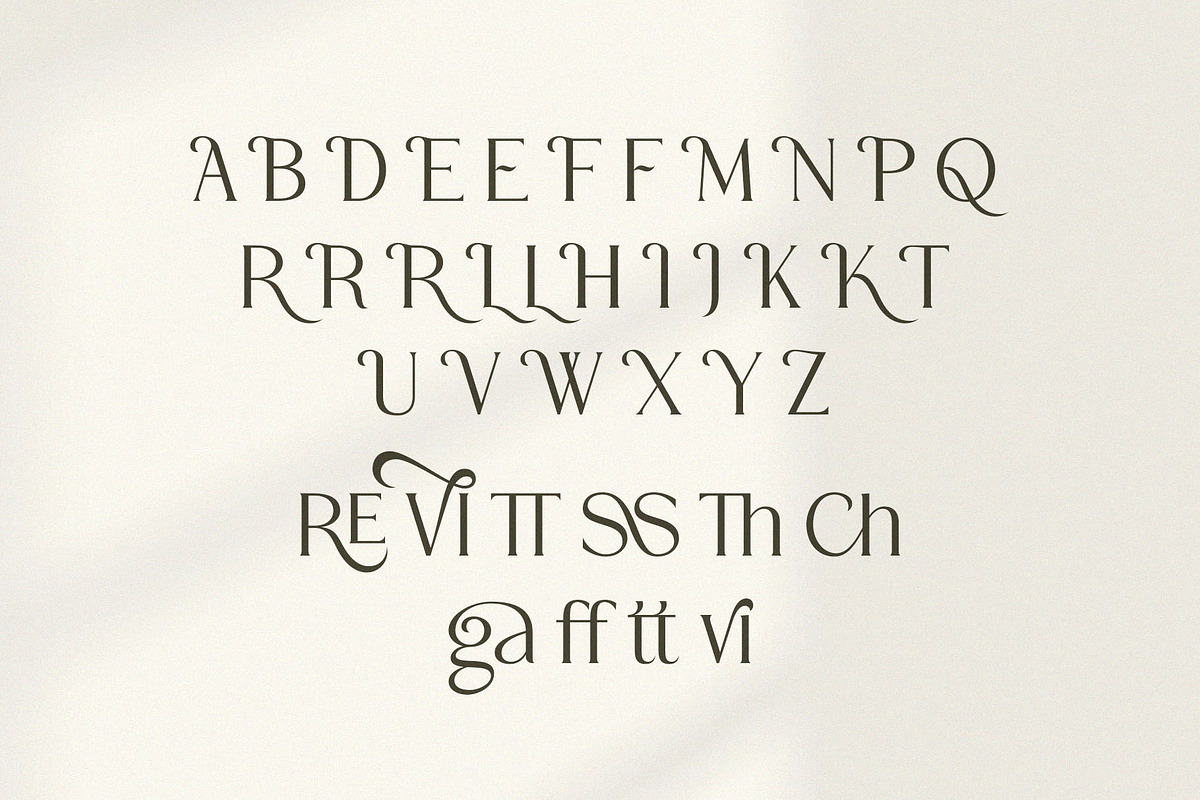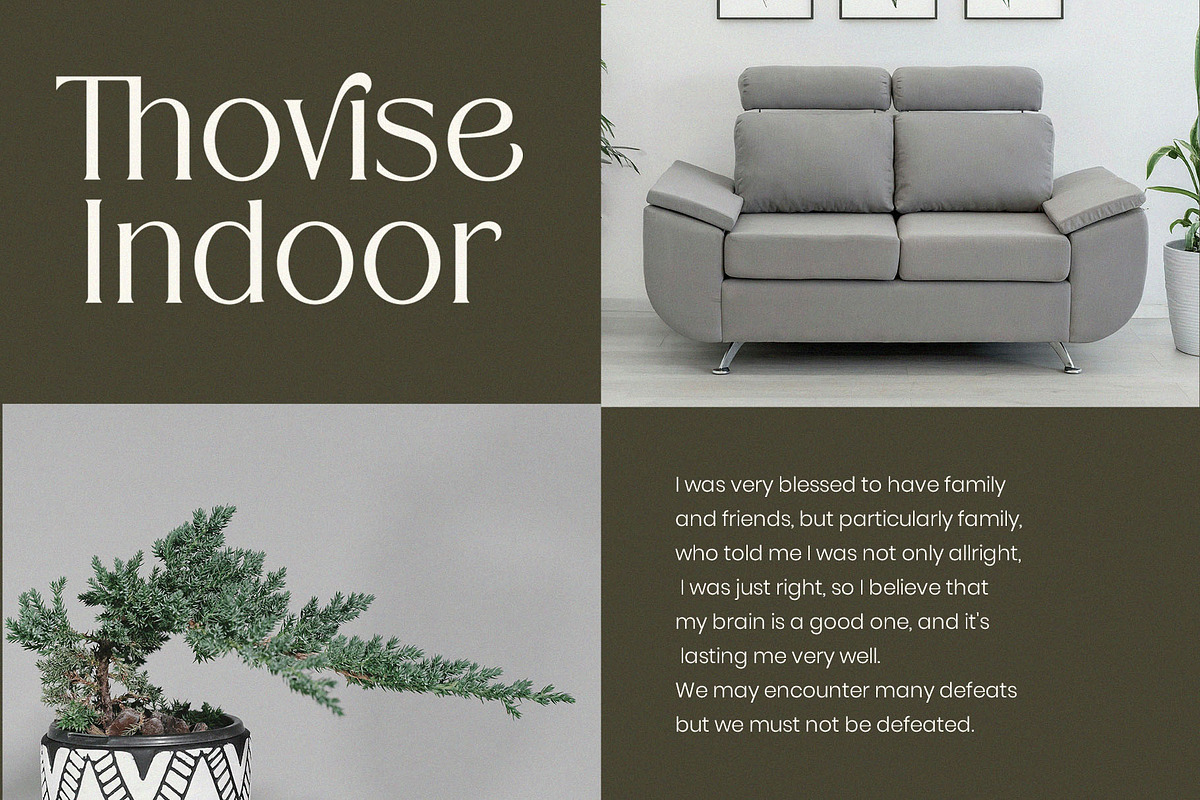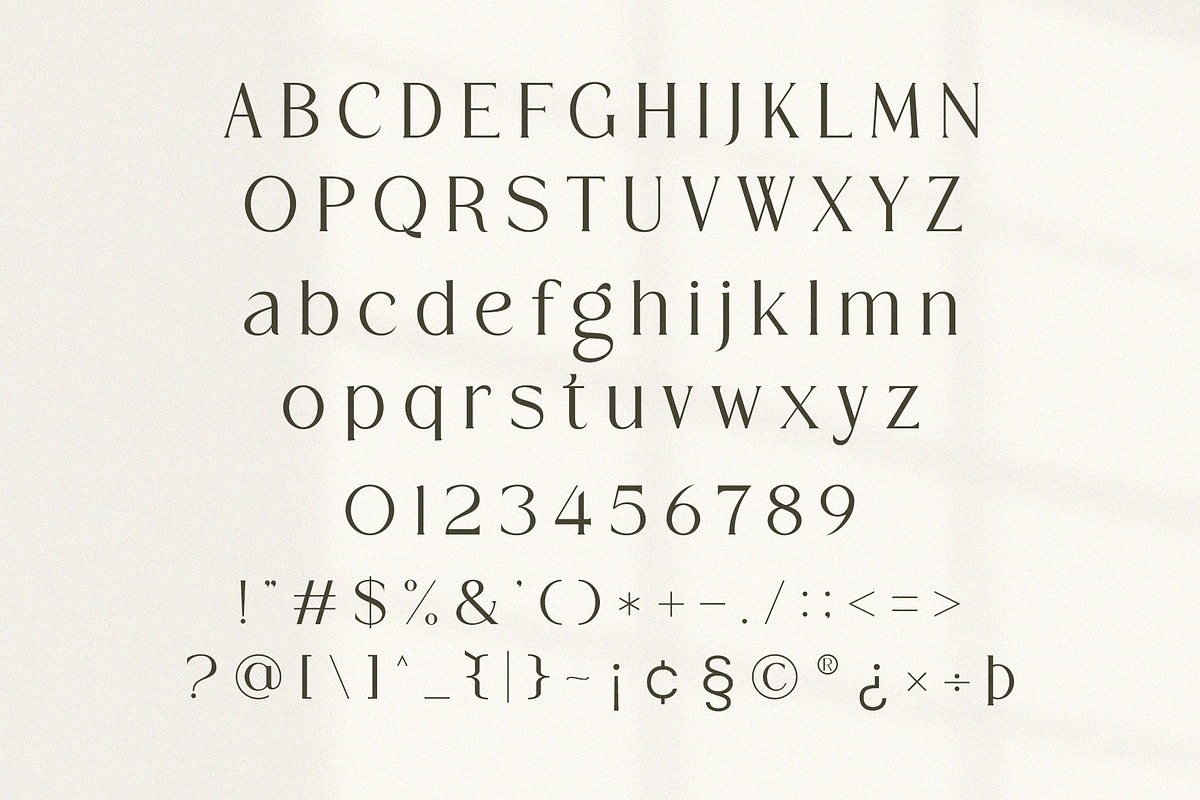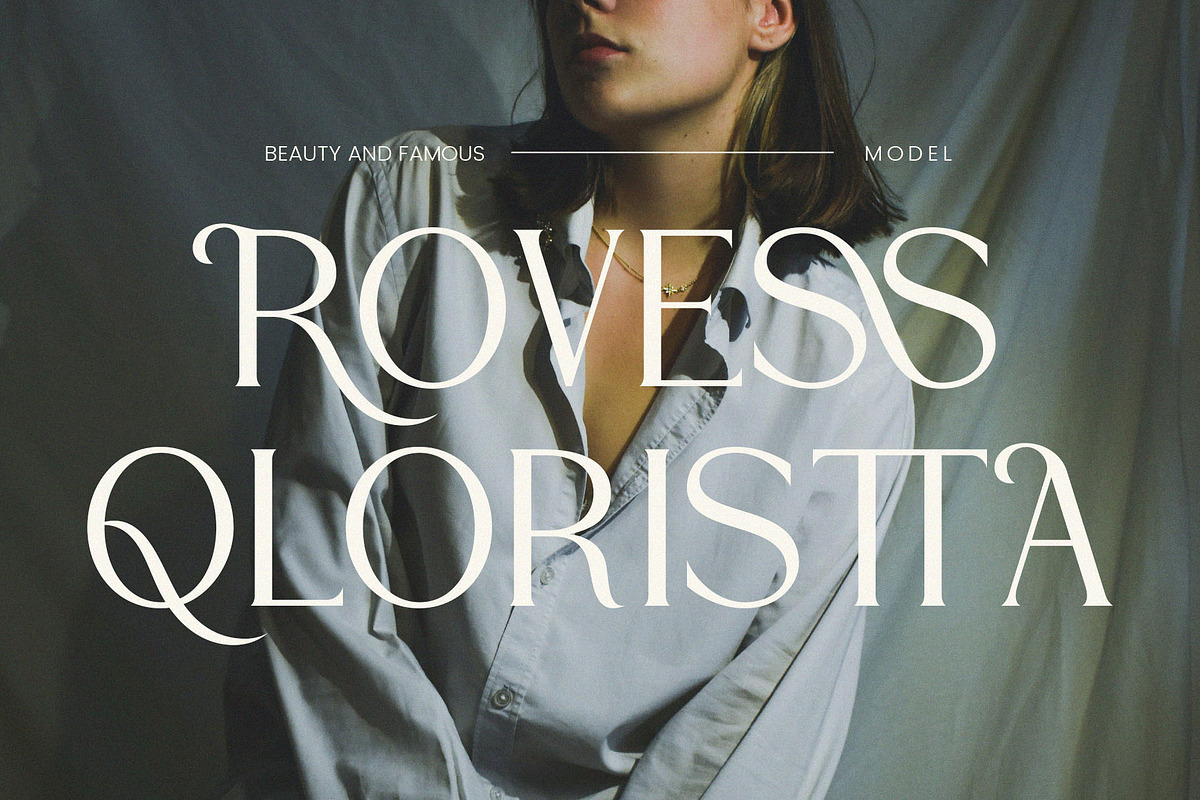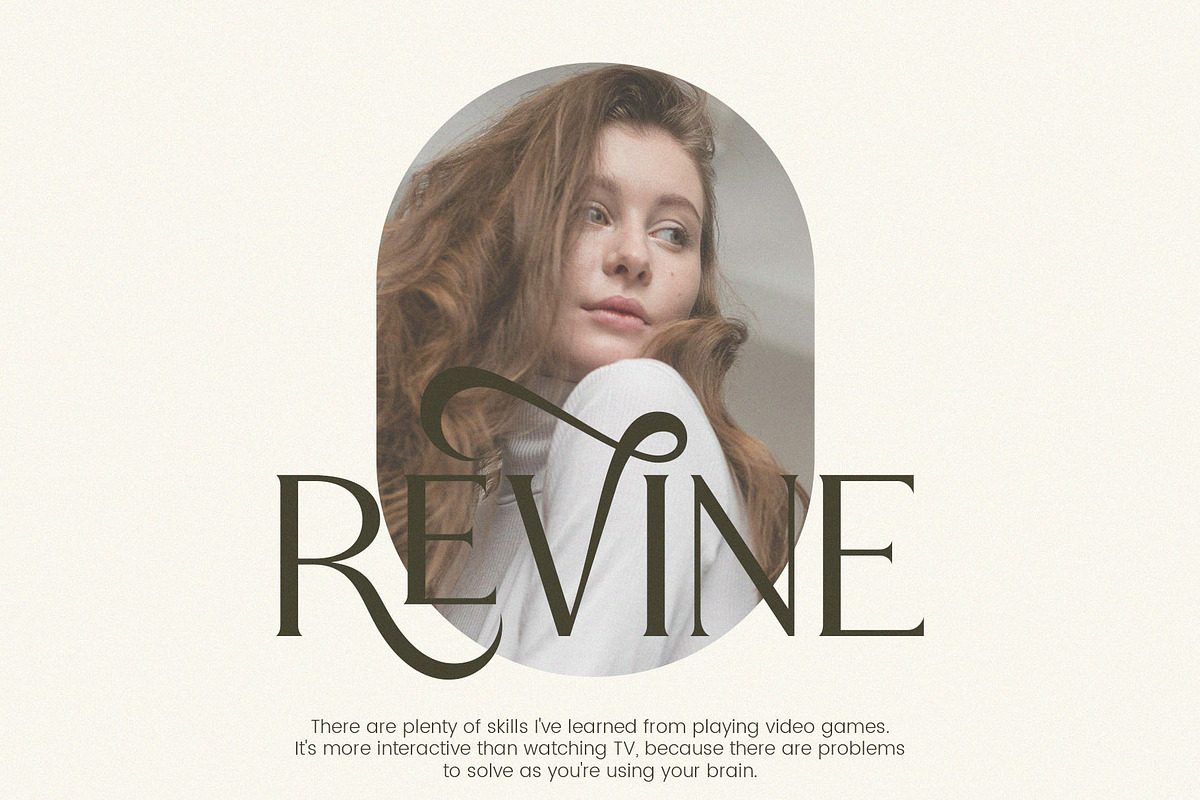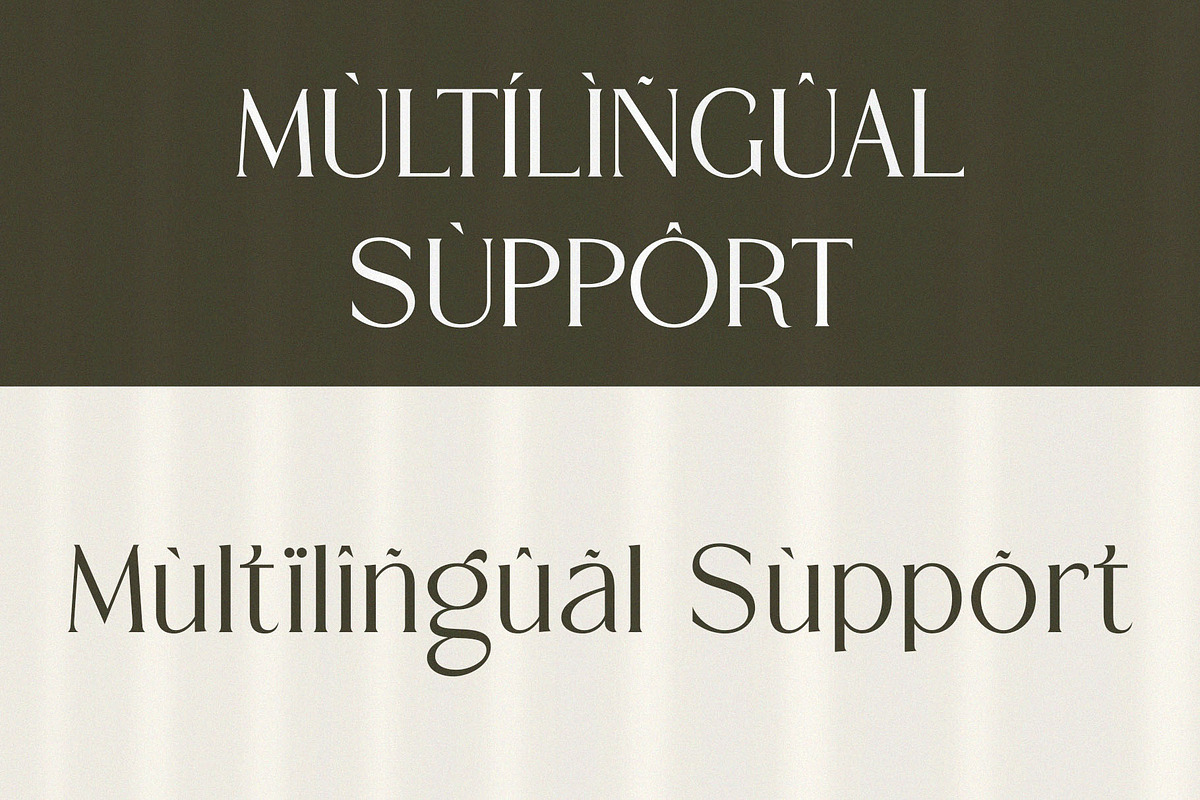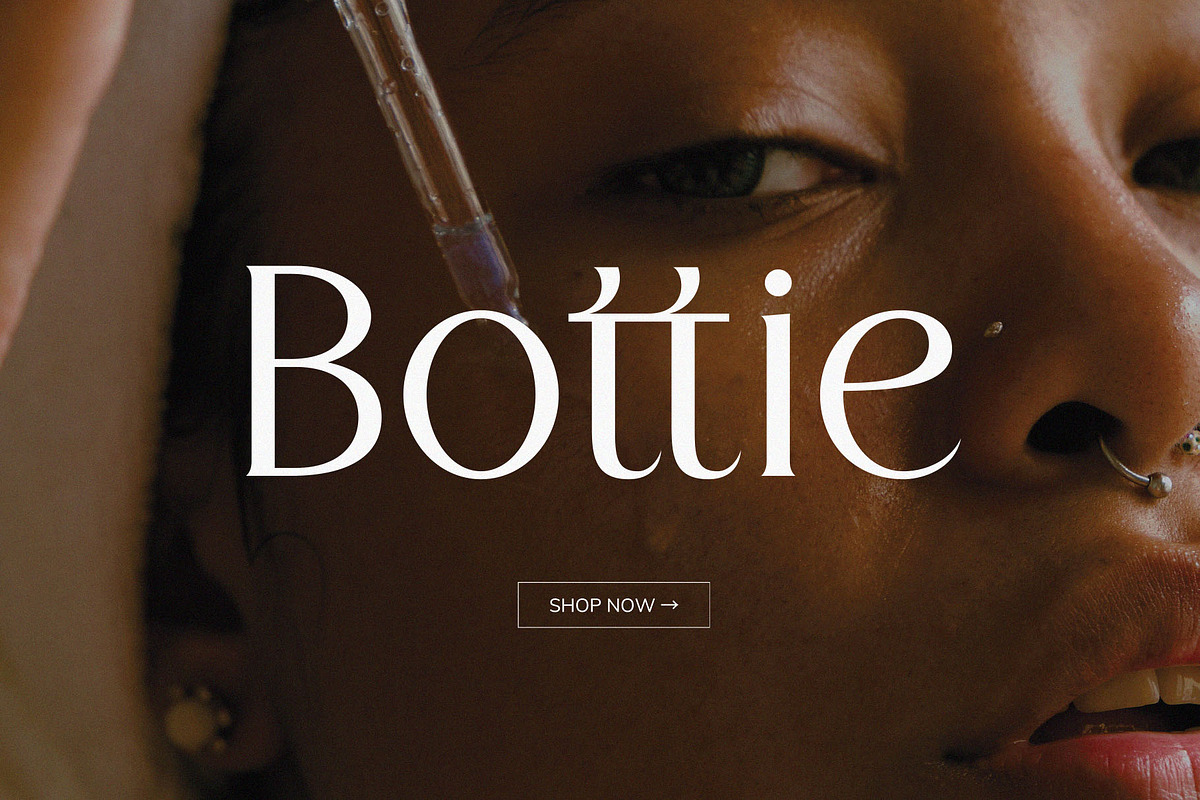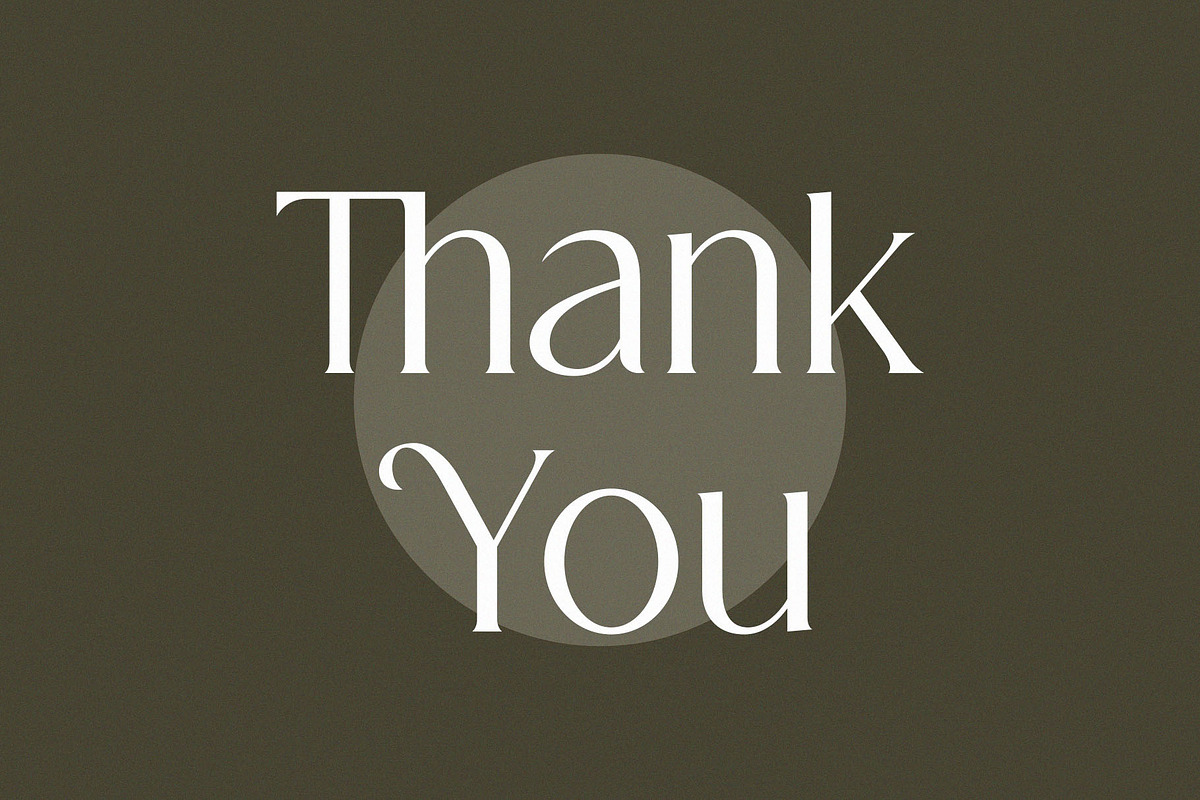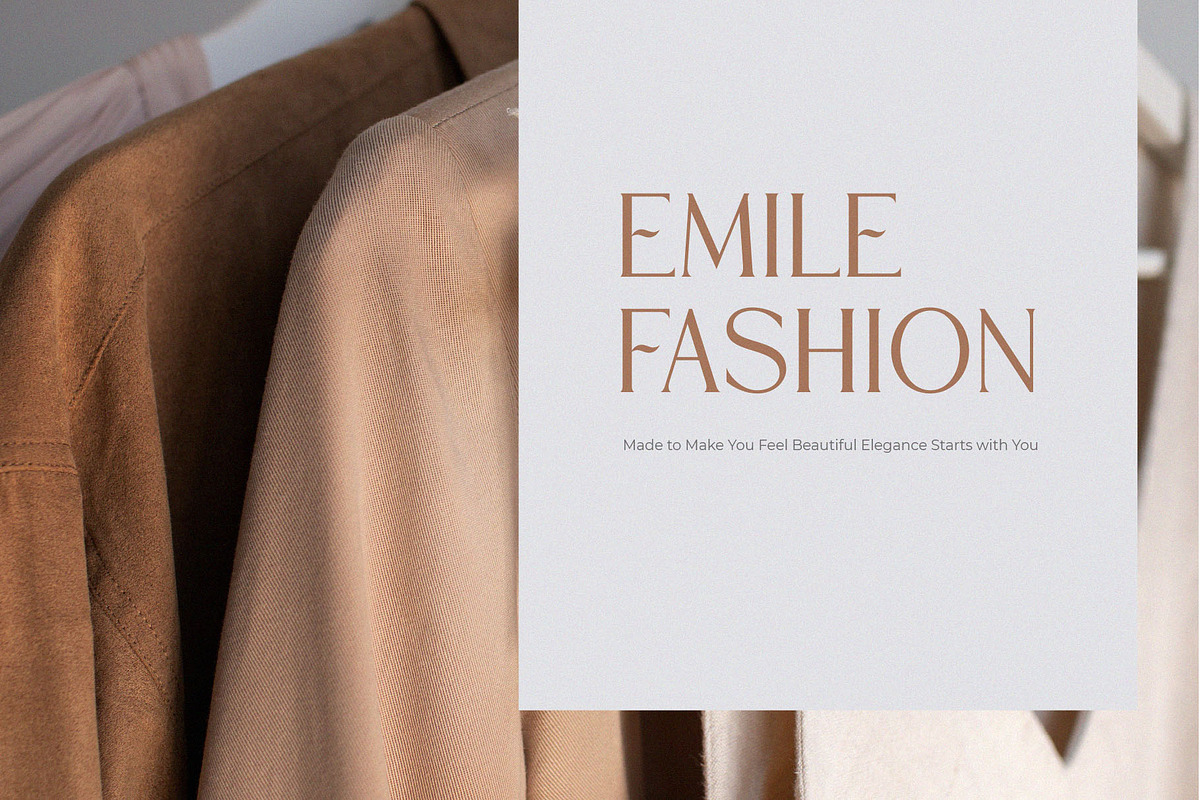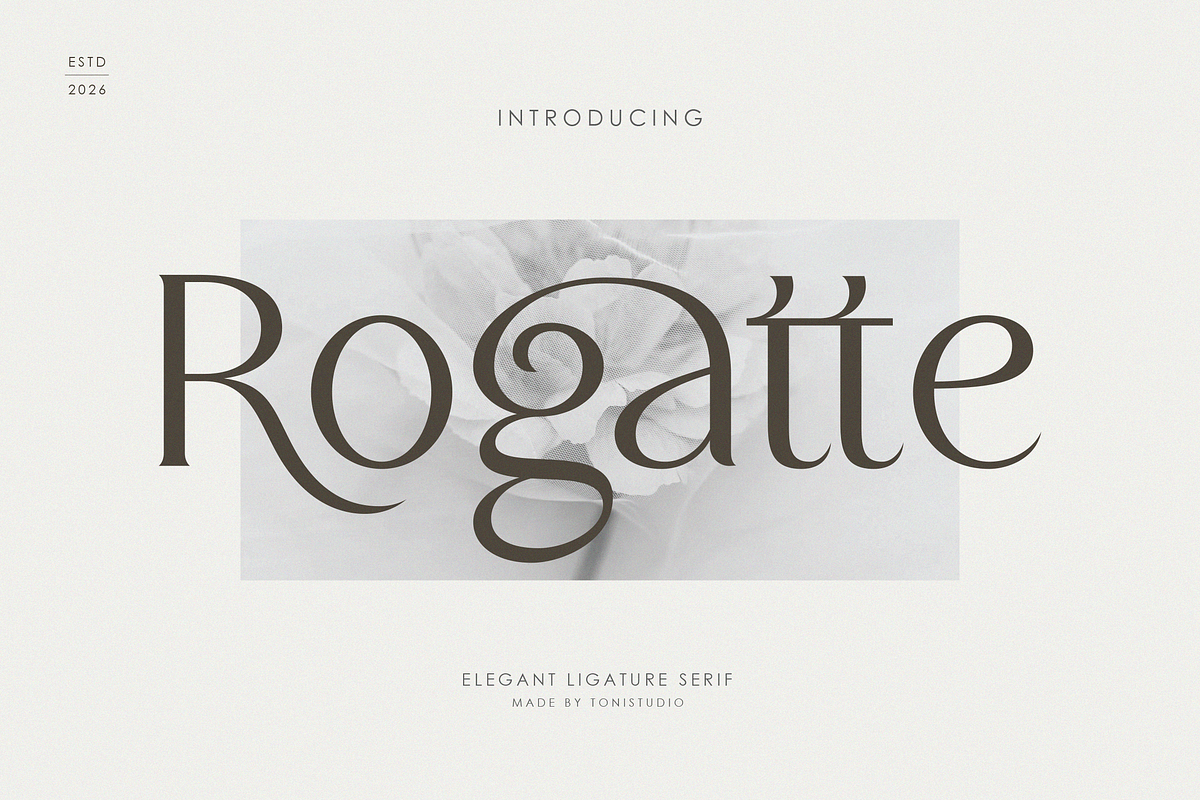
Rogatte || elegant ligature serif
Rogatte is an elegant ligature serif typeface crafted for high-end branding, editorial design, and luxury visual identities. Featuring refined contrast, graceful curves, and distinctive uppercase alternates, Rogatte brings a sophisticated and artistic touch to every composition. Designed with a strong focus on stylistic ligatures and expressive letterforms, this typeface is perfect for logos, fashion magazines, wedding invitations, and premium packaging. Each character is carefully shaped to create harmonious flow and timeless elegance, especially in all-caps settings where its alternate forms truly shine. Rogatte blends classic serif tradition with modern editorial aesthetics, making it a versatile choice for designers who seek uniqueness, luxury, and visual impact. Perfect for:Luxury branding, fashion editorials, logos, wedding designs, social media, packaging, and high-end typography projects. Key Features Elegant serif with high contrast Stylish ligatures Uppercase alternates (perfect for ALL CAPS design) Modern editorial & luxury feel Clean, refined, and expressive shapes
- Alternates & ligatures